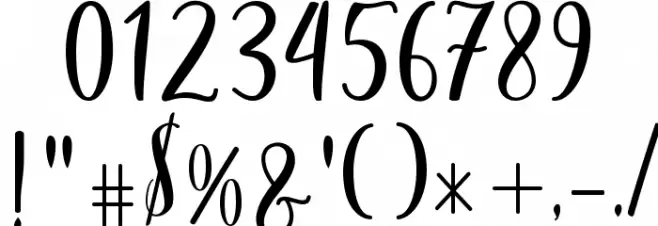
history of alabama Font
history of alabama Description
This font features an elegant and flowing script style, characterized by its smooth, cursive strokes and graceful curves. The uppercase letters are tall and slightly narrow, with decorative flourishes that add a touch of sophistication. The lowercase letters maintain a consistent flow, connecting seamlessly to create a harmonious appearance. The numerals are stylish and align well with the overall script theme, while the special characters are designed to complement the font's aesthetic. This font exudes a sense of elegance and charm, making it suitable for a variety of creative projects.
An elegant, flowing script font with decorative flourishes from Uncategorized fonts.
- Proposed Projects: Ideal for wedding invitations, greeting cards, branding, and elegant logo designs.
- Overall Style: Elegant
- Use Case: Logos, Invitations, Decorative text